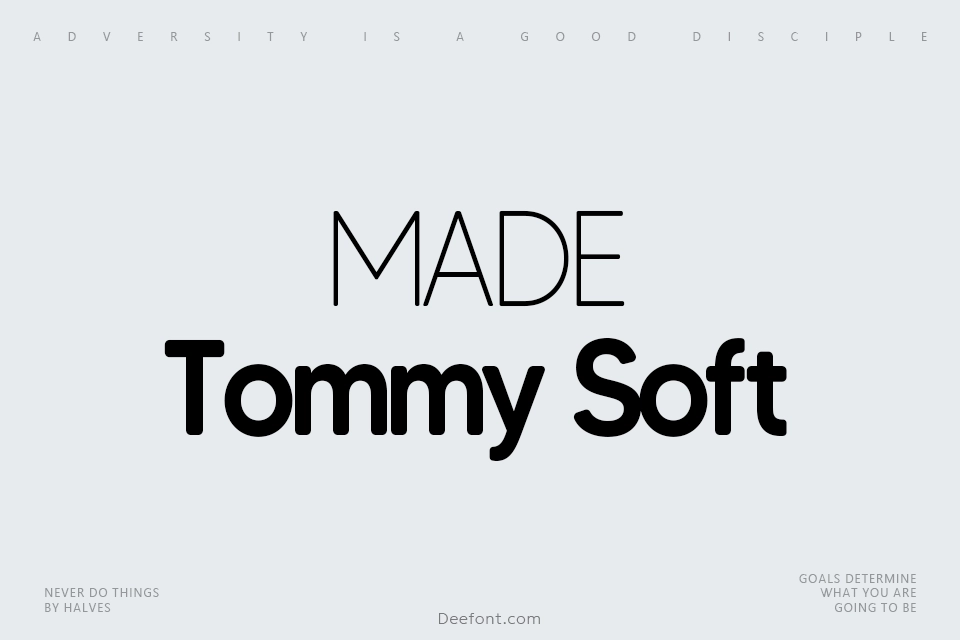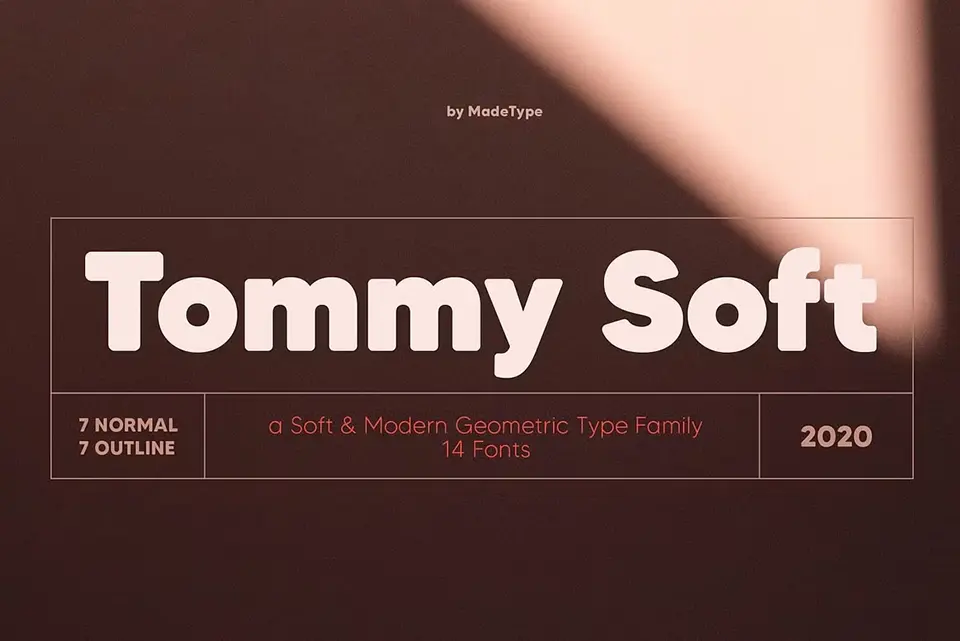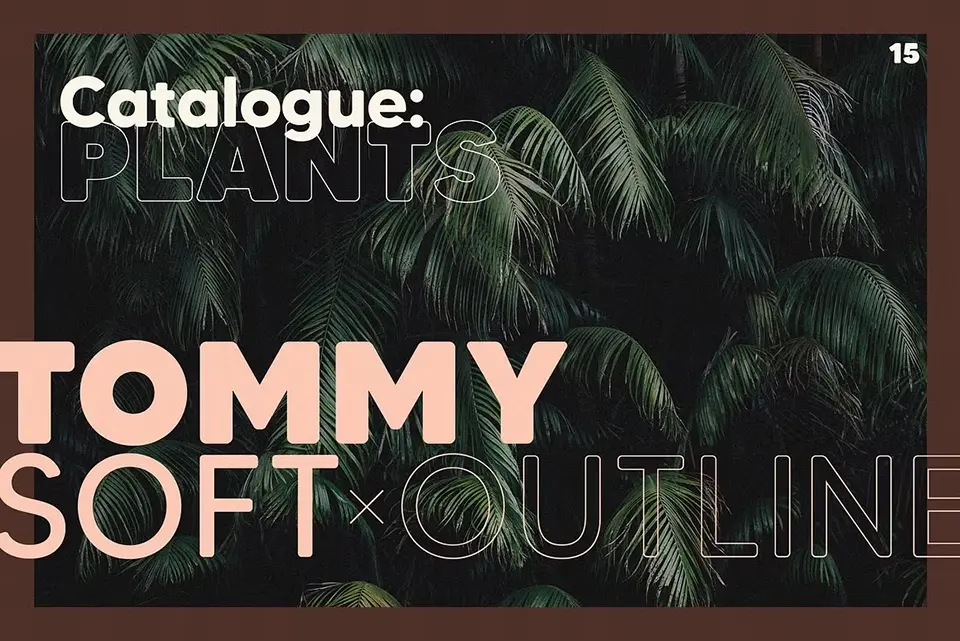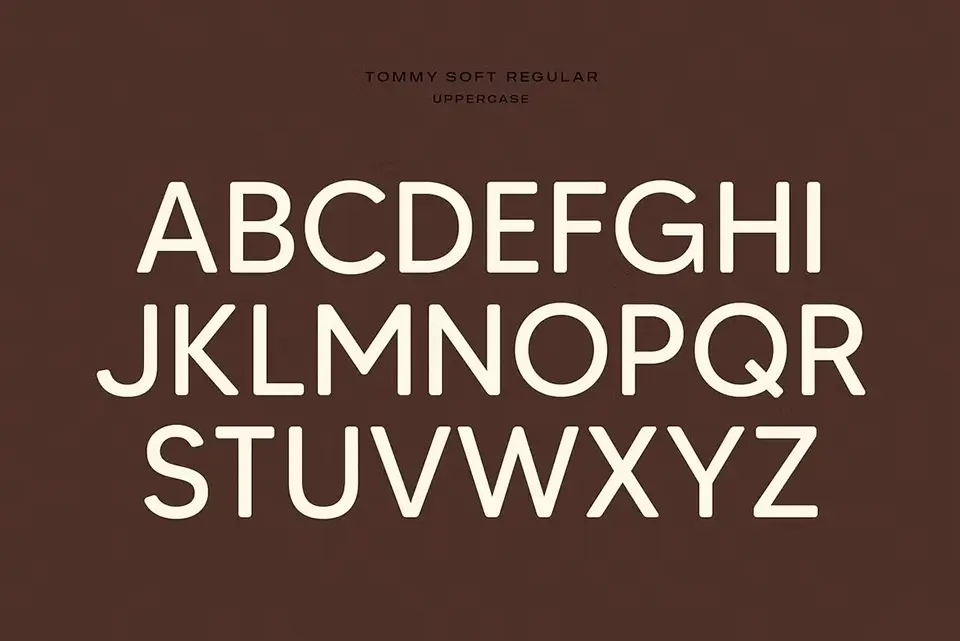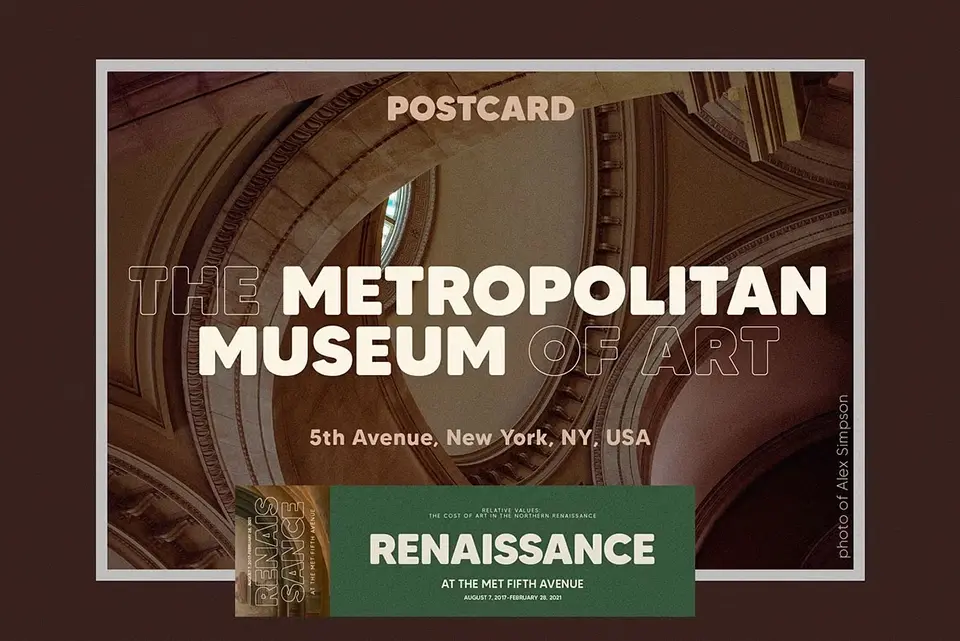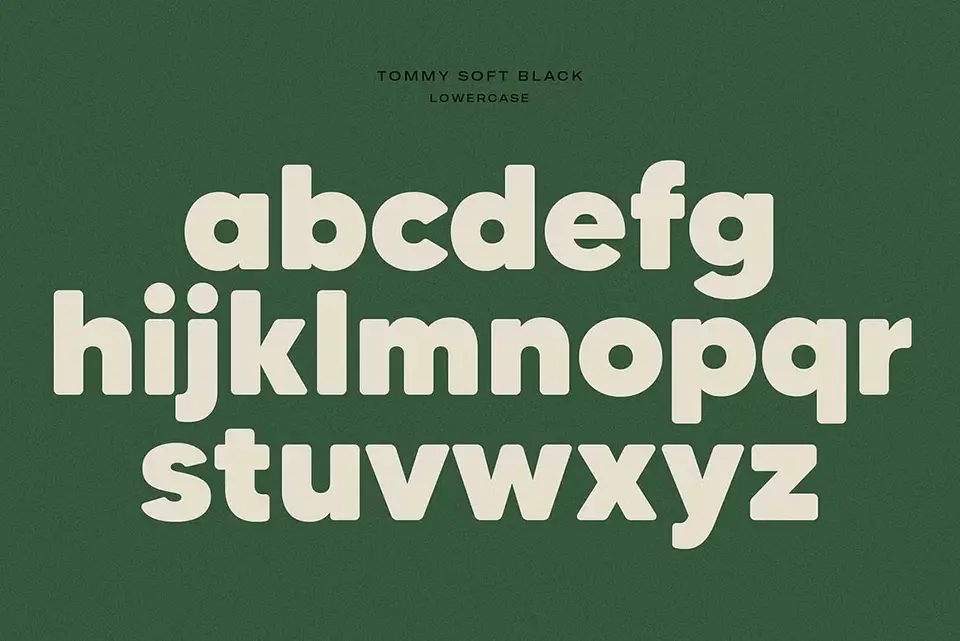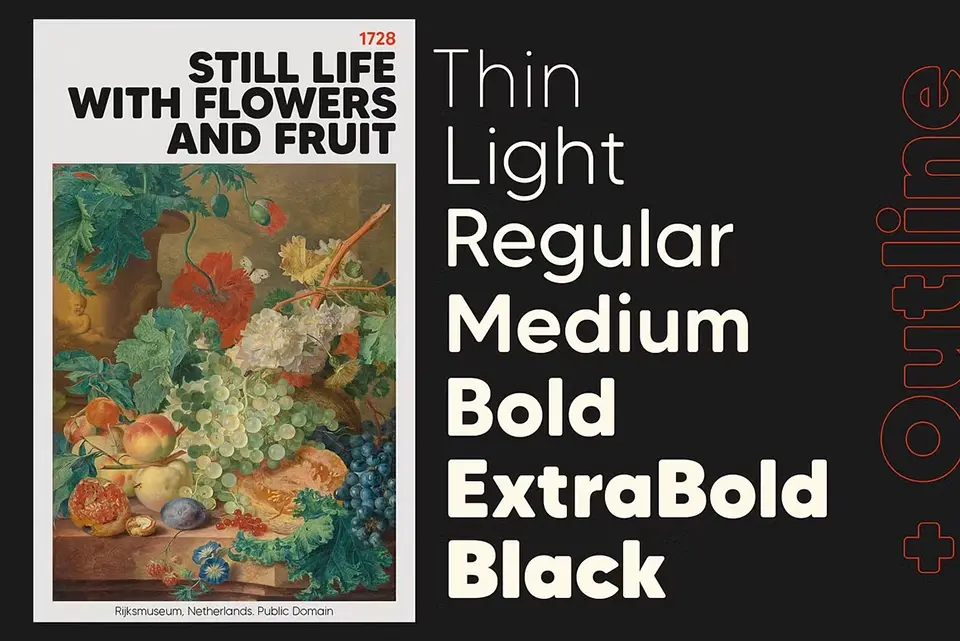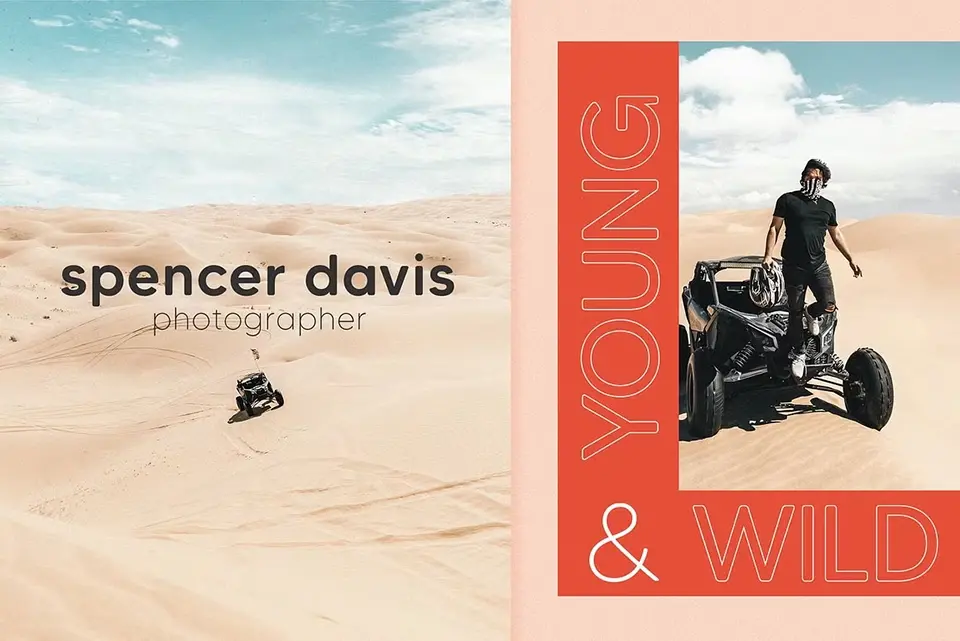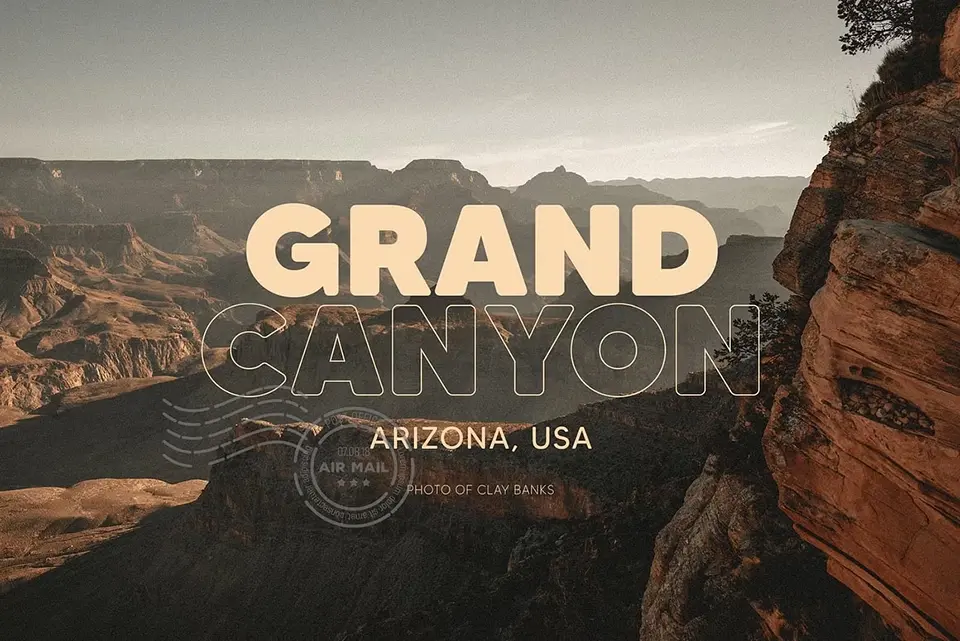
MADE Tommy Soft Font Family
MADE Tommy Soft is a soft and modern geometric sans serif typeface family designed by MadeType, offering seven weights from Thin to Black, each complemented by a matching outline style for creative flexibility. Perfect for fashion, branding, invitations, web design, and editorial projects, this friendly and rounded geometric font brings warmth and contemporary appeal to any creative work while maintaining professional readability and versatility.